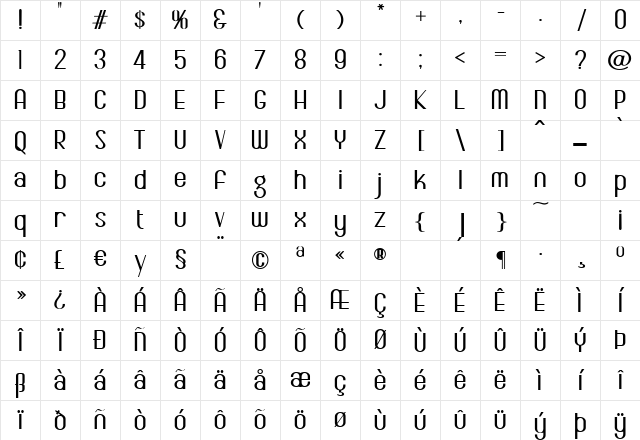
WesleyPosterJF Regular Free Font
WesleyPosterJF Regular
Design Context for WesleyPosterJF
WesleyPosterJF is a composed and adaptable typeface that performs quietly and consistently across a wide range of design contexts.